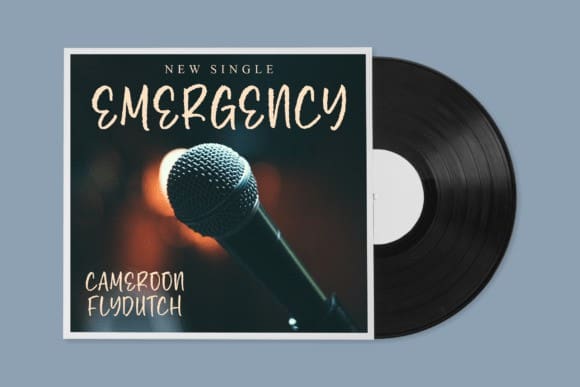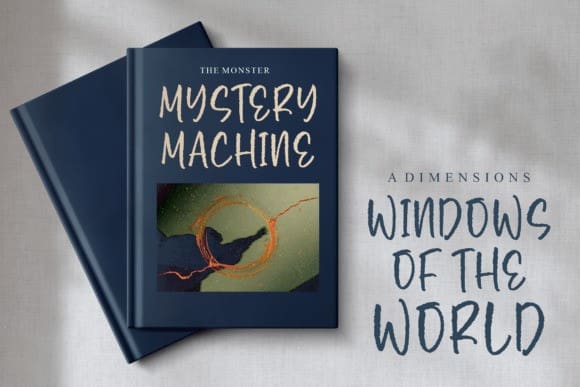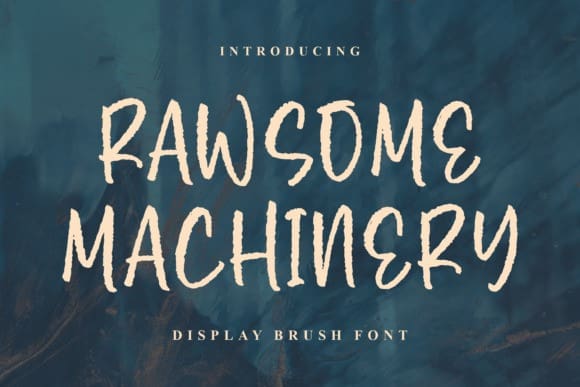
Rawsome Machinery Font
Rawsome Machinery Font – Display Brush Font is suitable for any projects such as: logos, branding projects, homeware designs, product packaging, mugs, quotes, posters, shopping bags, t-shirts, book covers, name cards, invitation cards, greeting cards, labels, photography, watermark, special events, and all your other lovely projects that need a beautiful script taste.